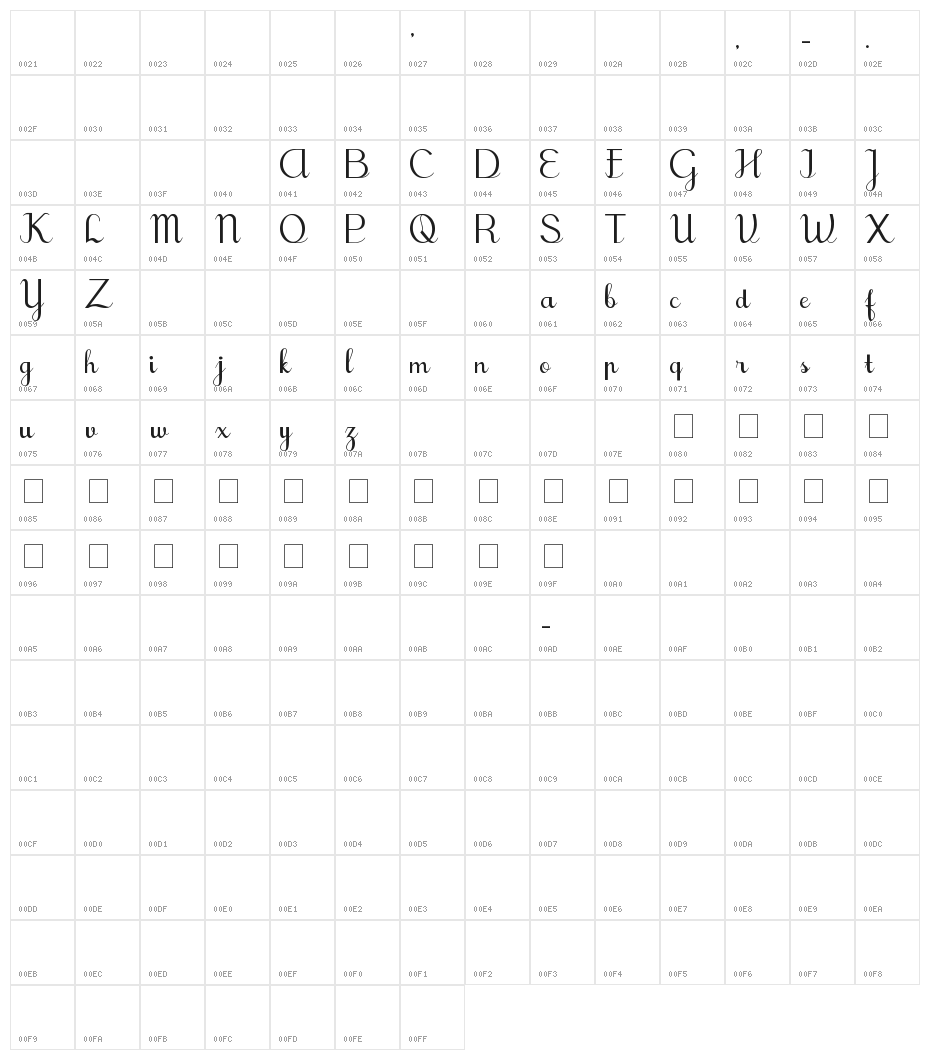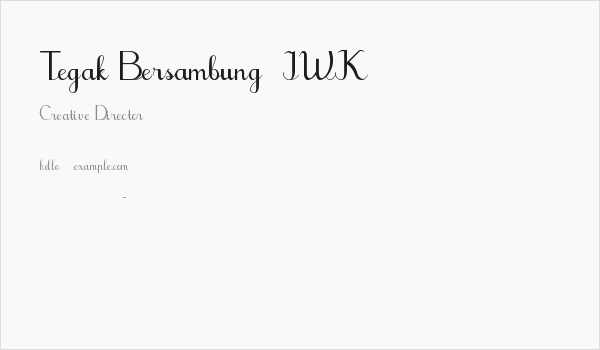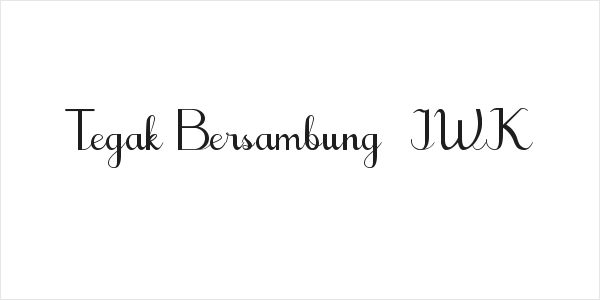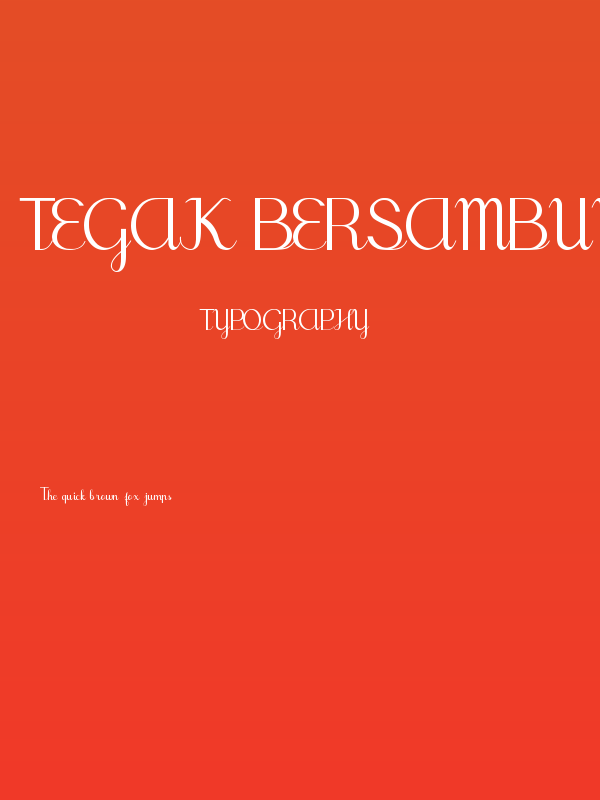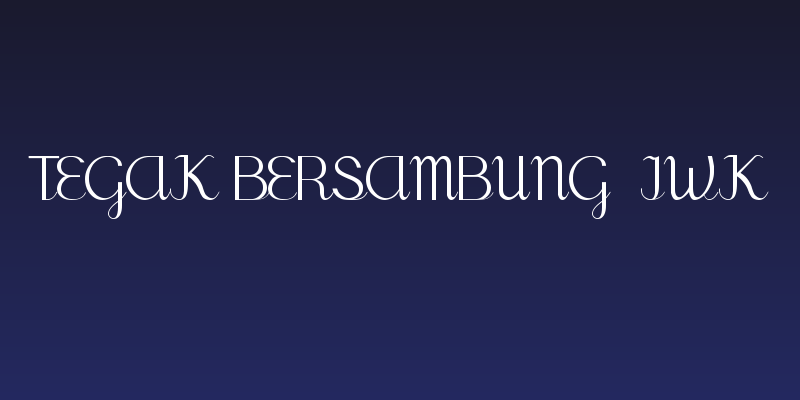
Tegak Bersambung_IWK Font
Tegak Bersambung_IWK Description
This font features a sophisticated and elegant script style with a modern twist. The uppercase letters have a unique blend of sharp angles and smooth curves, creating a dynamic and flowing appearance. The lowercase letters maintain a consistent style, with graceful loops and swashes that add a touch of flair. The overall design is balanced and harmonious, making it suitable for a variety of creative projects. The characters are well-spaced, ensuring readability while maintaining an artistic flair. This font is ideal for projects that require a touch of elegance and sophistication.
| Proposed Projects | Ideal for wedding invitations, elegant branding, and high-end product packaging. |